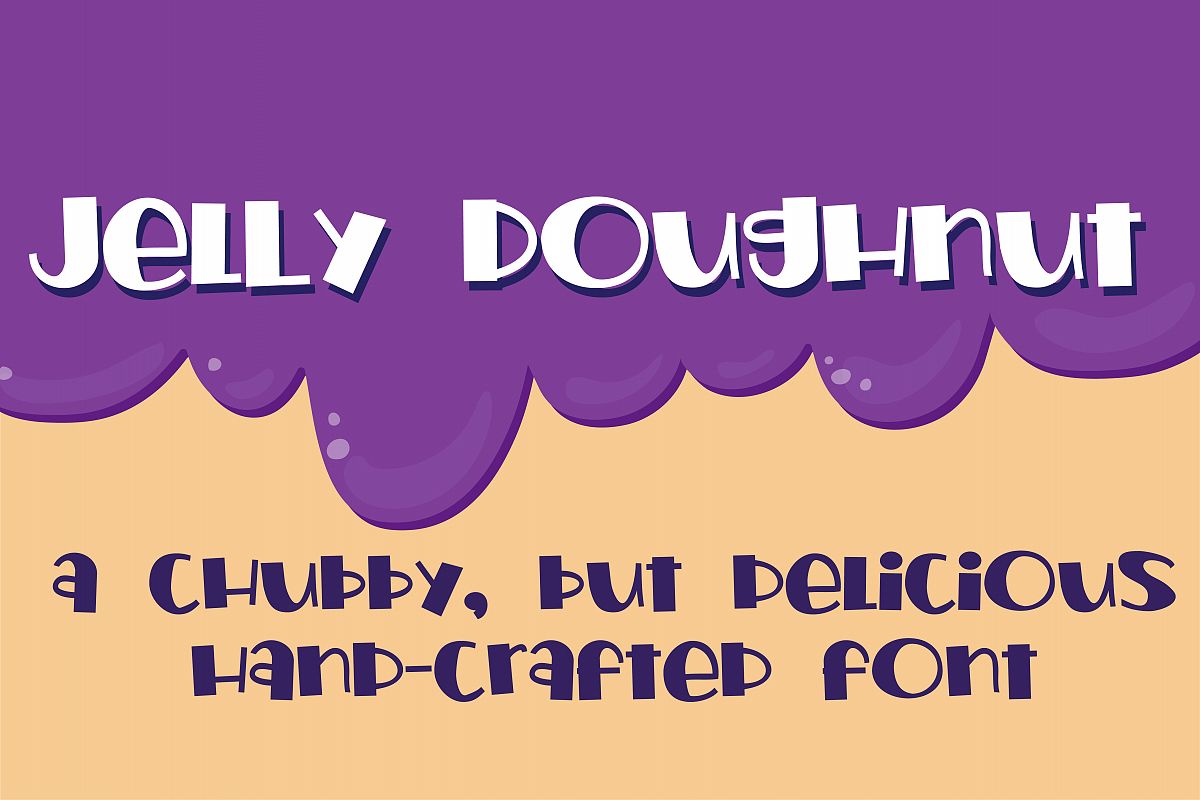
This bold and chubby font has some serious thick and thin variations and lacks any true descenders. This whimsical font can be used for titles, displays, posters, or journaling.